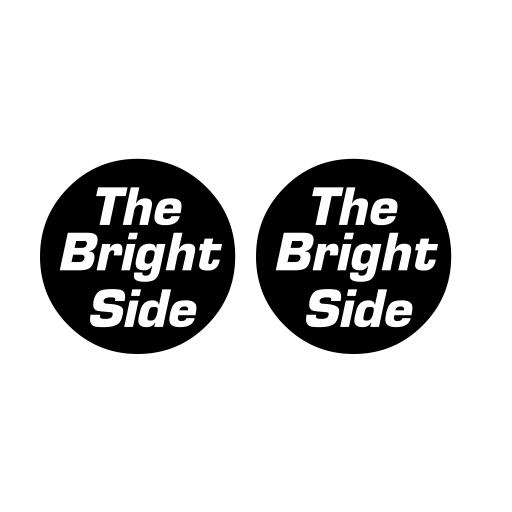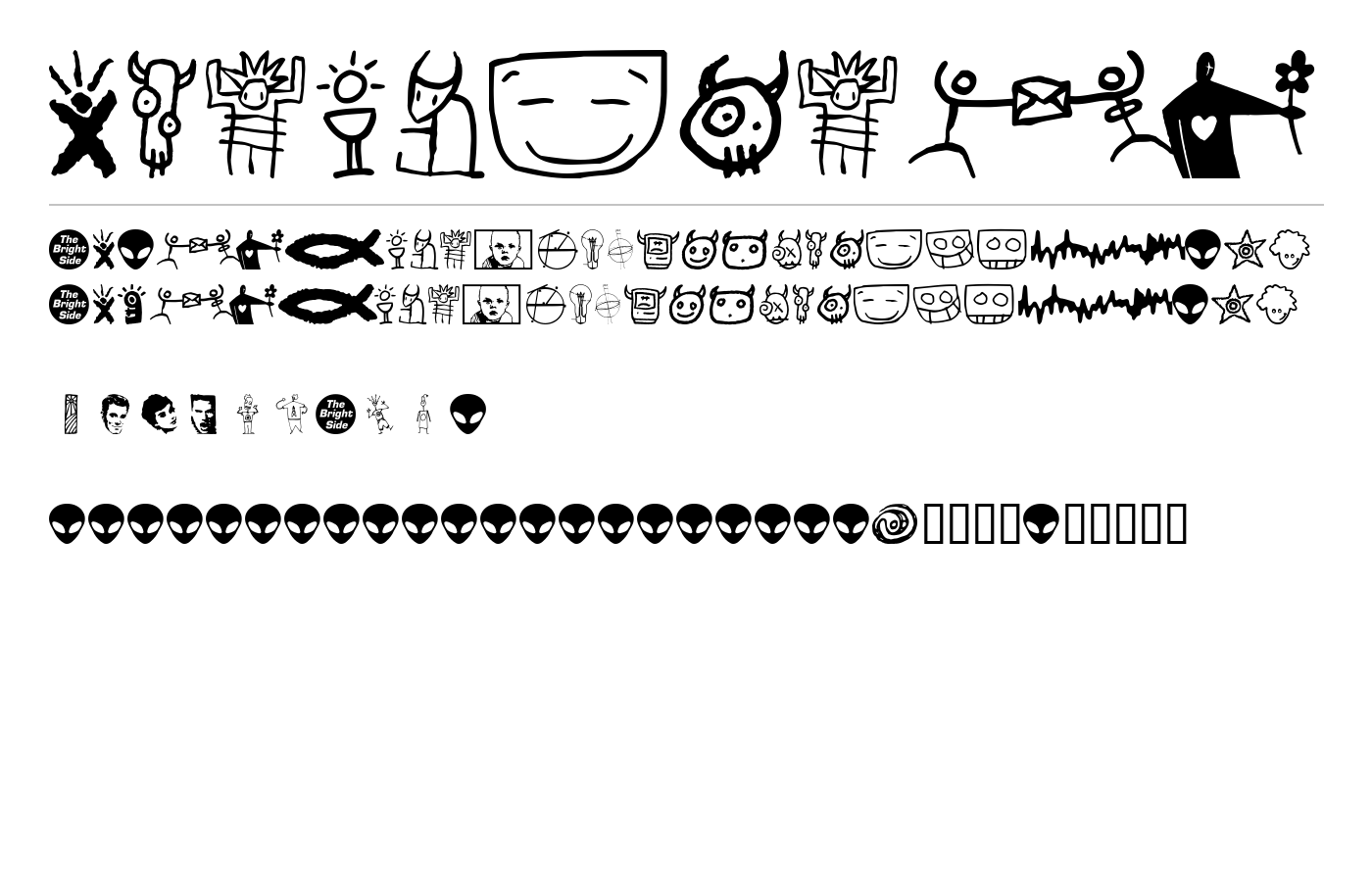
BrightSide is a playful and quirky dingbat font filled with fun, hand-drawn icons ranging from whimsical stick figures to alien heads and abstract shapes. Its bold, irregular strokes and lively characters create a quirky, informal vibe perfect for adding a creative, spirited touch to posters, casual branding, and unique digital content that aims to stand out with personality.
BrightSide Font
About BrightSide Font